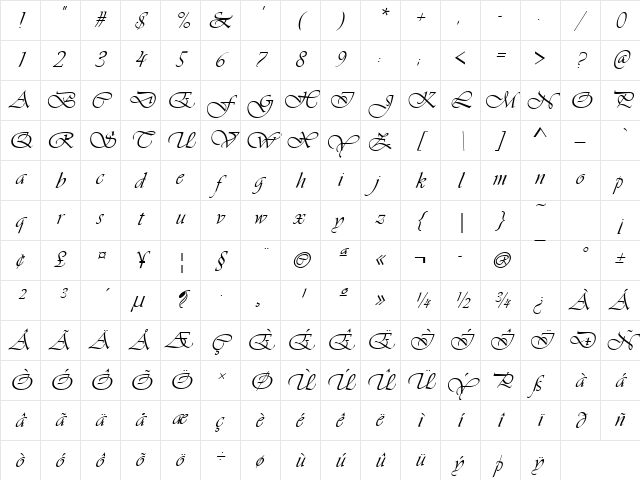
VivaldiD Regular
Design Context for VivaldiD
VivaldiD is a composed and adaptable typeface that performs quietly and consistently across a wide range of design contexts.